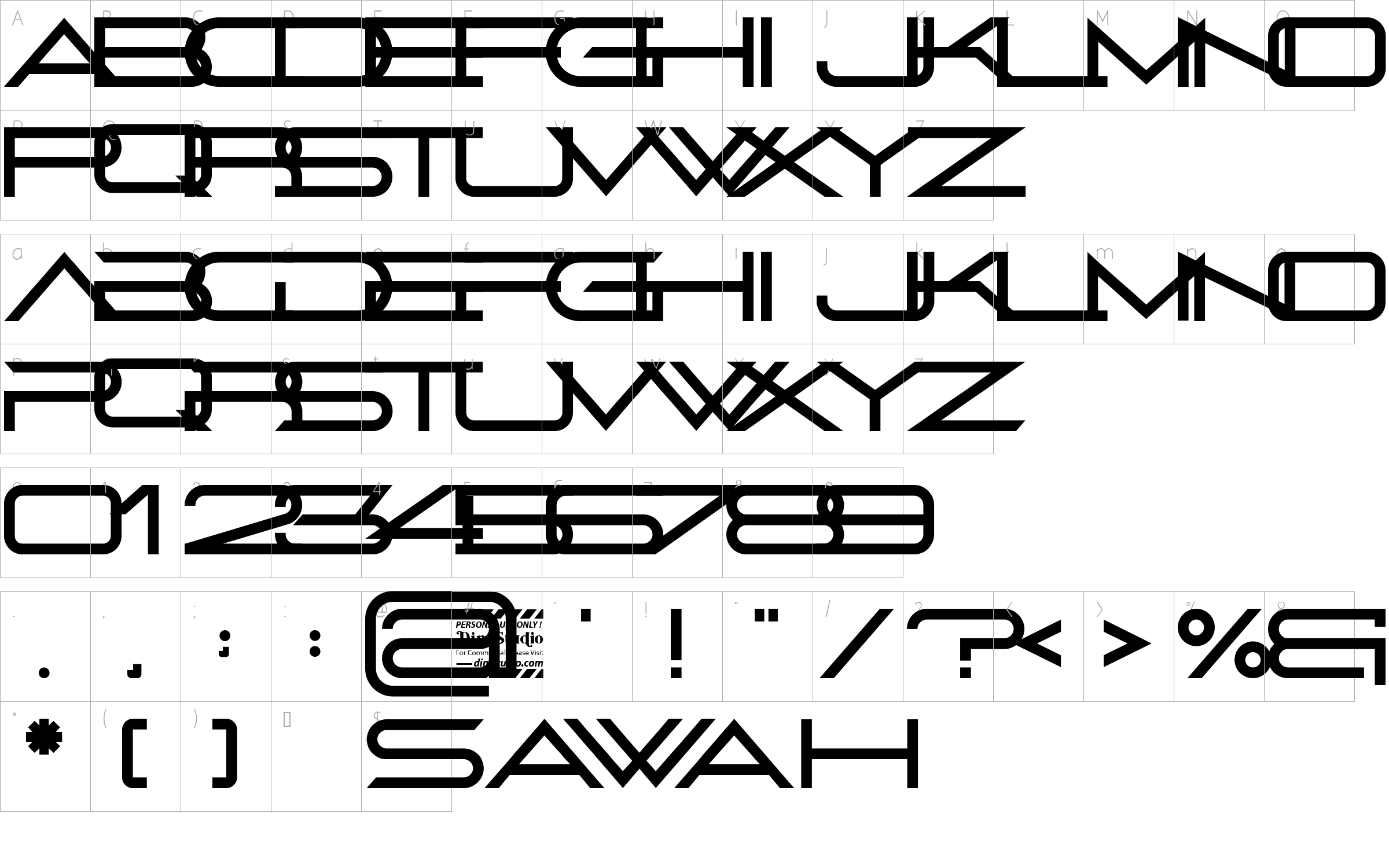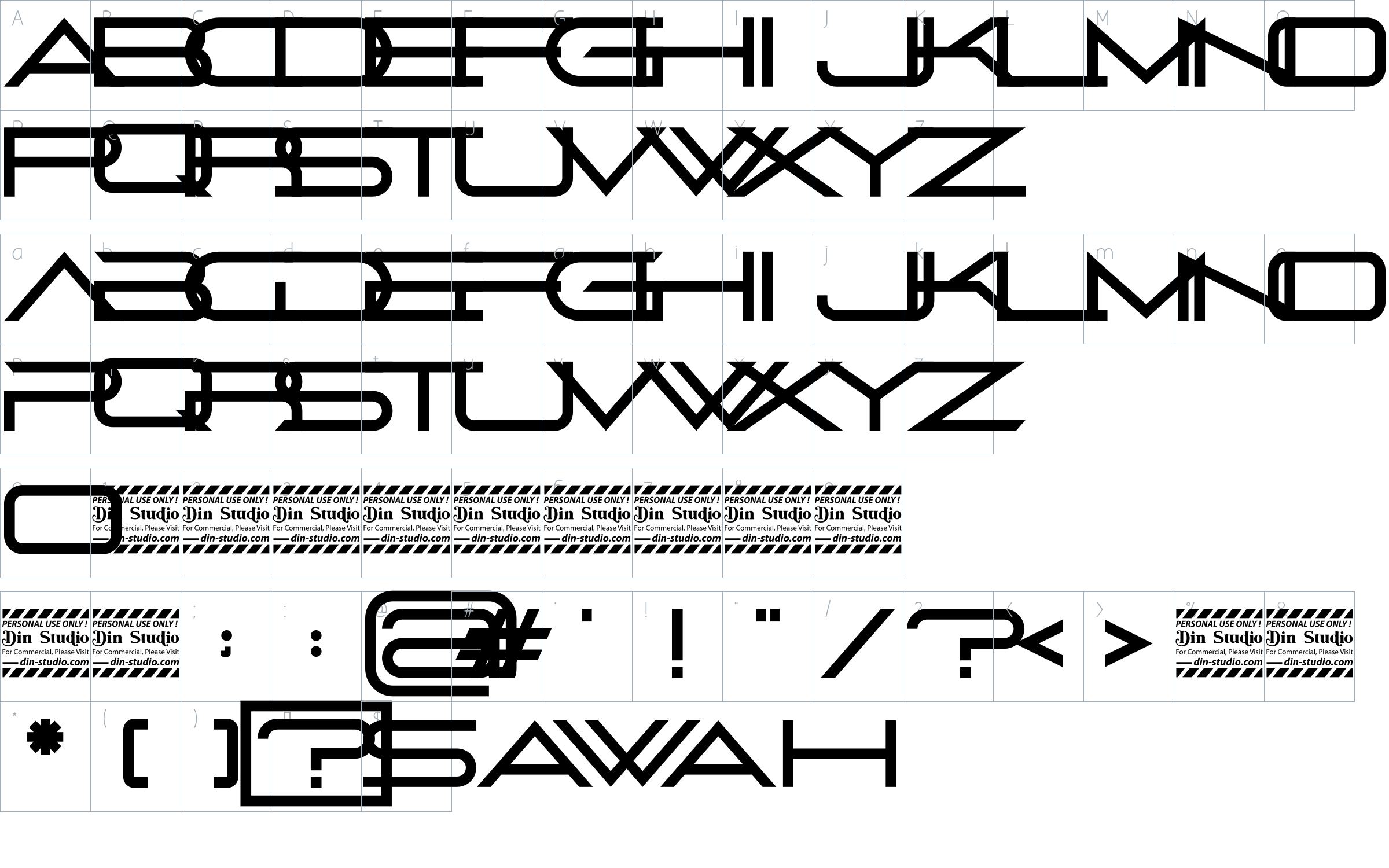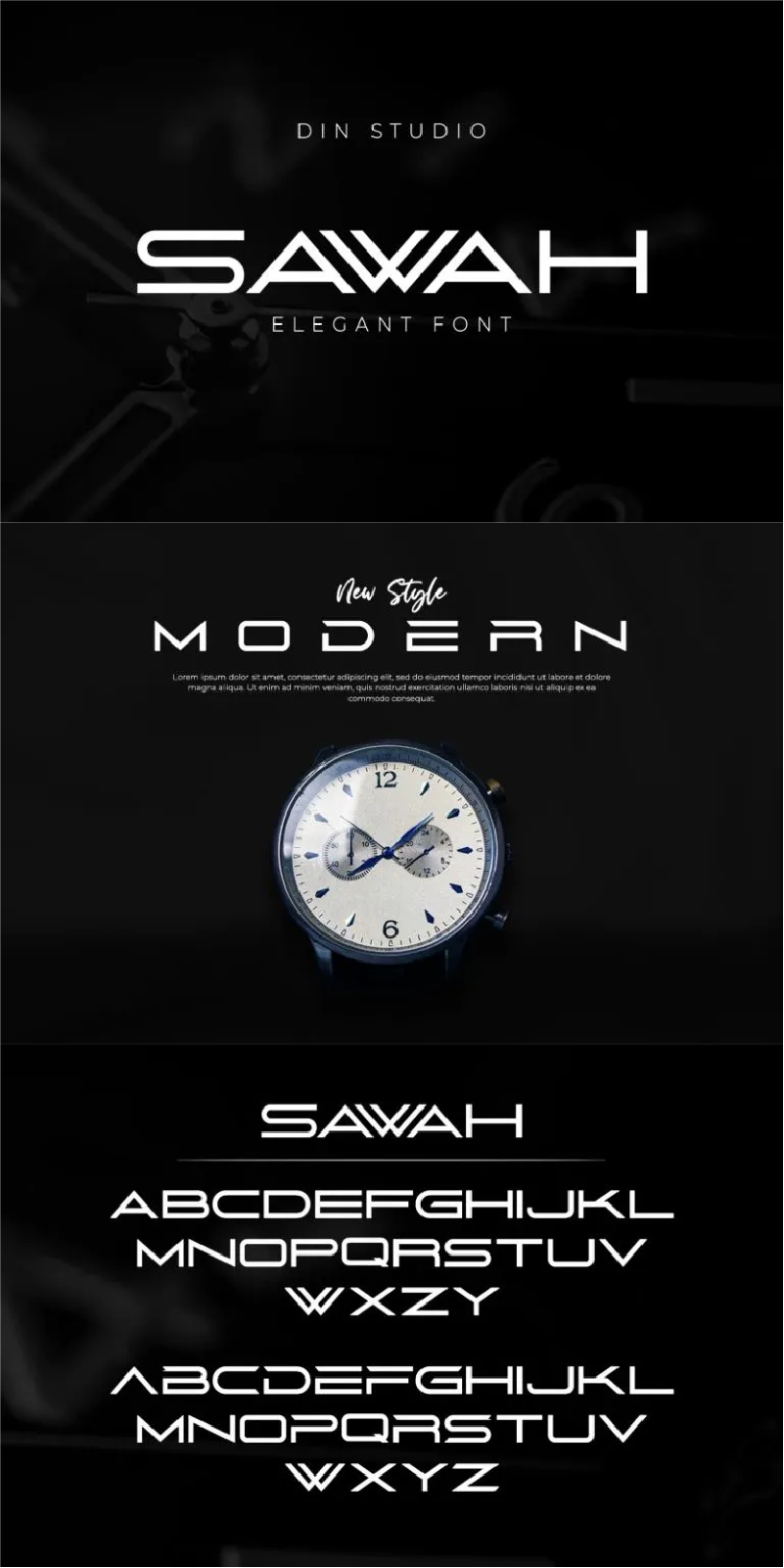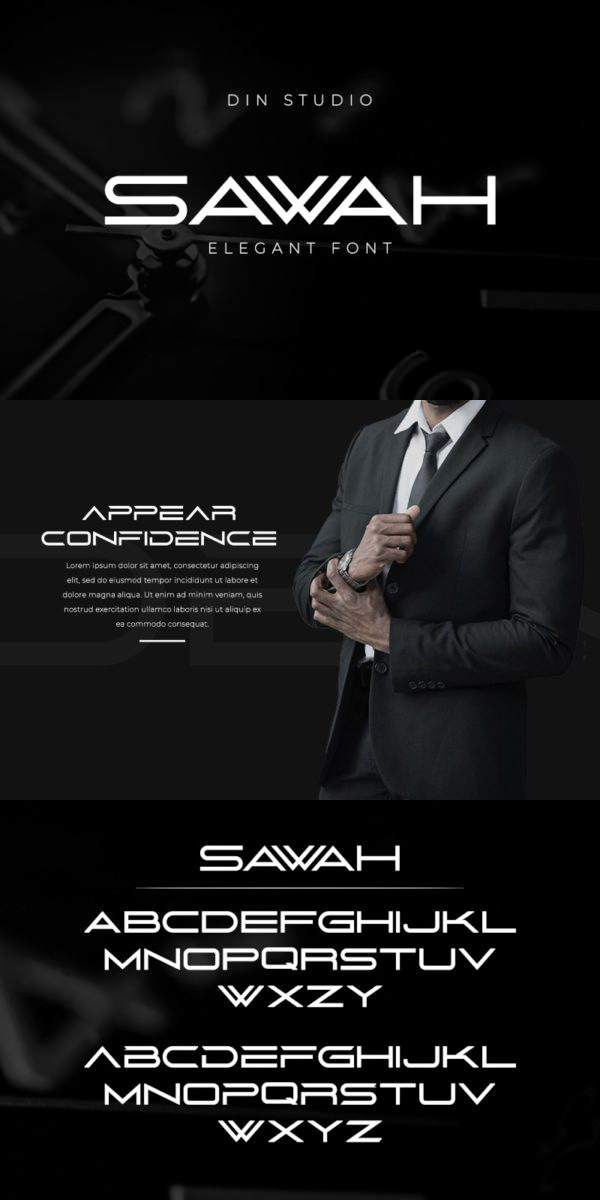
SAWAH Font
About SAWAH
Hello, Everyone! Let’s get to know Sawah, a modern and elegant display font showing abstract shapes in all their eclectic beauty. This font will look truly outstanding in a wide range of contexts which is best used for logos, brandings and quotes. See the previews above to get some inspiration on how you can use them. Happy designing!